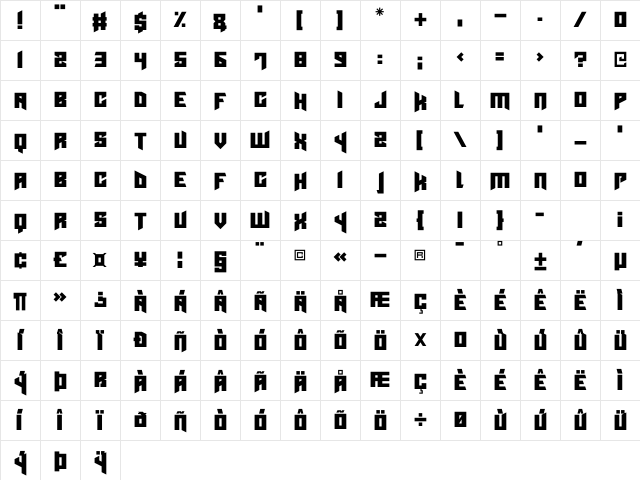
Cyberpunks Regular Free Font
Cyberpunks Regular
Design Context for Cyberpunks
Cyberpunks has a distinctly futuristic character, with geometric precision and clean angles that feel at home in technology, gaming, and sci-fi contexts.
Pro Tip: Try Cyberpunks with generous letter-spacing in UI labels and navigation - the geometric forms benefit from room to breathe.